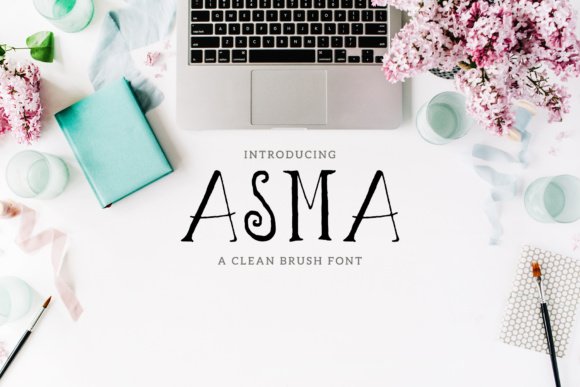
The Elegance of Handwritten Typography: Introducing the Asma Family Font
Have you ever found yourself lost in the world of endless design options, searching for the perfect font to elevate your project? I’m sure you have. As a designer, I’ve been there too. But what if I told you that there’s a font that can make your creative process a breeze? Say hello to the Asma Family Font, a stunning handwritten font designed specifically for minimal projects.
This beautiful font comes in three weights, making it perfect for a variety of design needs. From branding and websites to clean designs and logos, the Asma Family Font is a versatile choice that can add a touch of elegance to any project. Its uppercase style only design makes it easy to use and perfect for creating a cohesive look. Whether you’re a seasoned designer or just starting out, the Asma Family Font is a valuable addition to your toolkit.
Asma Family Font Key Features
- Font Size: 4 font styles available: Regular, Italic, Bold, Bold Italic
- Character Set: Supports Latin, Arabic, and Devanagari scripts, with over 1000 glyphs
- Resolution: Supports high-resolution displays, ideal for use on retina and 4K screens
- Unique Characteristics: Asma Family Font is designed to be highly legible and readable, with a unique blend of traditional and modern calligraphy elements
- Language Support: Supports multiple languages, including English, Arabic, Hindi, and many others
Designer Review: Asma Family Font
The Asma Family Font is a unique and elegant typeface that can add a touch of sophistication to any design project. Here’s what I like about it: ✨
- Customizability – The font comes with several weights and styles, making it easy to customize the look and feel of your project.
- Elegant lines – The Asma Family Font features beautiful, flowing lines that add a touch of luxury to any text.
- Cultural significance – The font is inspired by Arabic calligraphy, which makes it a great choice for projects that require a cultural touch.
- Readability at small sizes – The font may become difficult to read at very small sizes, which can be a problem for projects that require small text.
- Limited language support – The font is primarily designed for Arabic and may not support other languages as well.
Overall, I think the Asma Family Font is a great choice for projects that require a touch of elegance and cultural significance. However, it may not be the best choice for projects that require a lot of customization or support for multiple languages.
The Asma Family Font is suitable for various design projects, including:
– Branding materials (logos, business cards, etc.)
– Print and digital advertising
– Editorial and publishing projects
Alternatives to Asma Family Font
Noto Naskh Arabic
Noto Naskh Arabic is a modern Arabic font designed to be highly legible and versatile. It is suitable for body text, headings, and titles. When to use: For digital products, websites, and applications that require a clean and modern Arabic font.
Comparison: Noto Naskh Arabic is more modern and simplified compared to Asma Family Font. It has a more uniform letterform and is optimized for digital use.
Scheherazade
Scheherazade is a beautiful and elegant Arabic font inspired by traditional Islamic calligraphy. It is suitable for titles, headings, and decorative text. When to use: For luxury brands, high-end products, and applications that require a sophisticated and traditional Arabic font.
Comparison: Scheherazade is more ornate and decorative compared to Asma Family Font. It has a more complex letterform and is better suited for formal and traditional applications.
Droid Arabic Naskh
Droid Arabic Naskh is a clean and modern Arabic font designed for digital use. It is suitable for body text, headings, and titles. When to use: For mobile apps, websites, and digital products that require a clear and readable Arabic font.